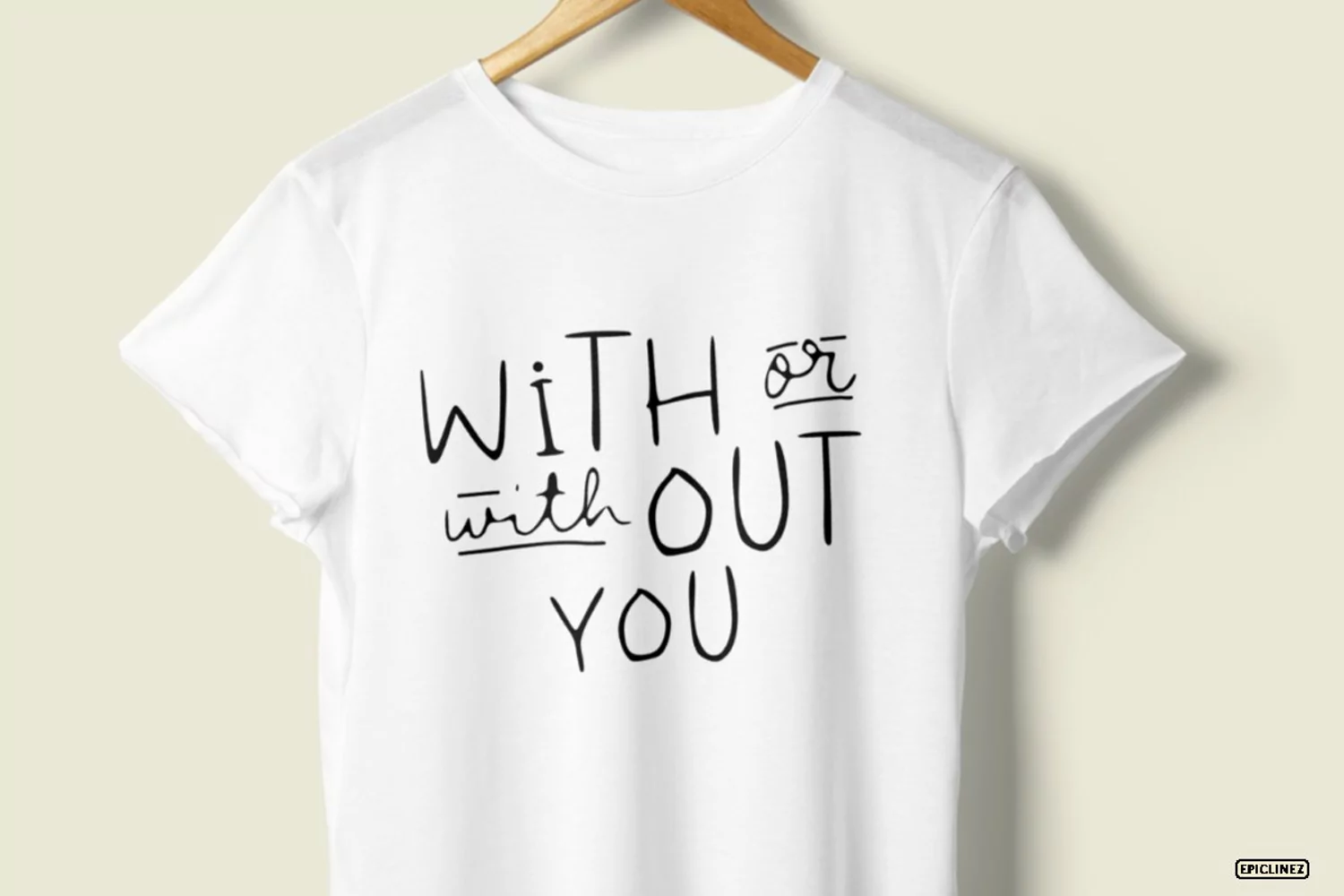
Coffee & Friends - A Sweet Hand-lettered Font
Coffee & Friend is a sweet hand-lettered font. Its natural and friendly style could be the perfect fit for your awesome designs.